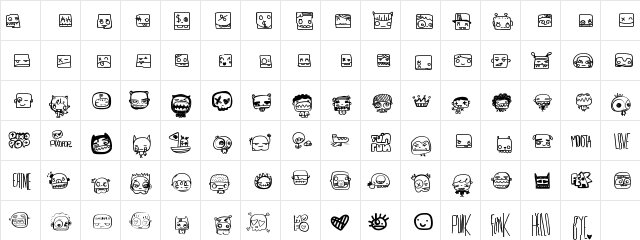
PixopopMonstalove Medium Free Font
PixopopMonstalove Medium
Complete PixopopMonstalove Medium glyph index. Displaying only characters natively supported by PixopopMonstalove Medium font.
Design Context for PixopopMonstalove
PixopopMonstalove is a composed and adaptable typeface that performs quietly and consistently across a wide range of design contexts.